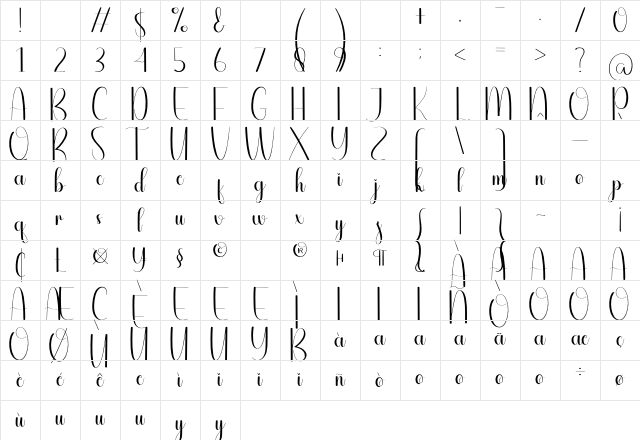
Spaceroom Regular Free Font
Spaceroom Regular
Design Context for Spaceroom
Spaceroom is a composed and adaptable typeface that performs quietly and consistently across a wide range of design contexts.